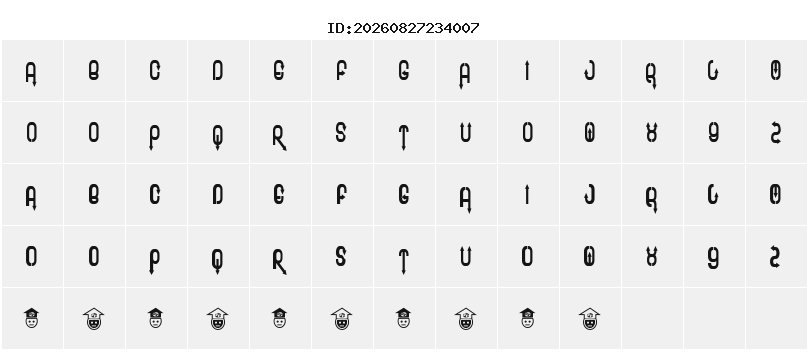
• Font Name: Twee
About Twee.ttf
Twee.ttf is a modern, elegant sans-serif font designed for ultimate readability and visual harmony. Perfect for branding, headlines, web design, and print materials.